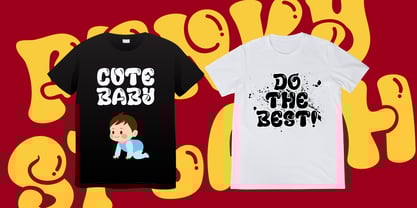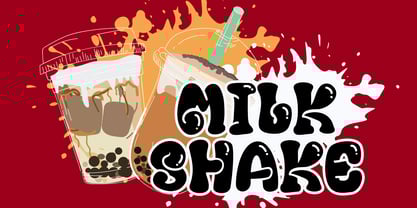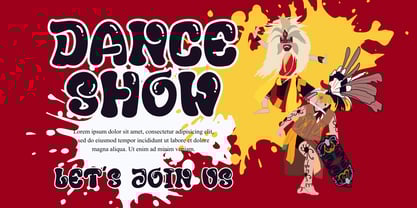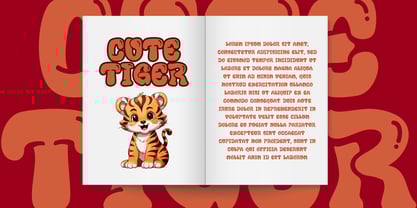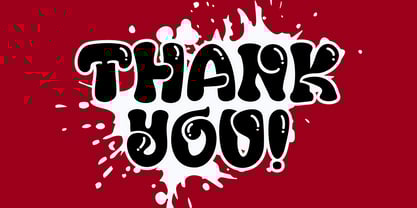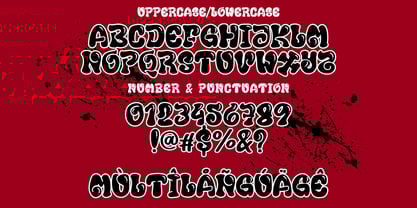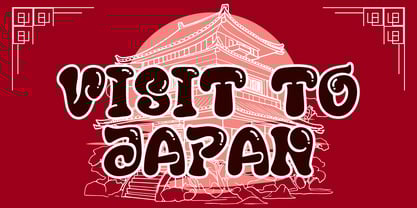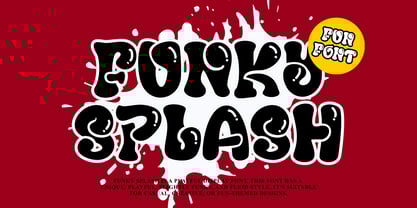
Funky Splash
by Letterafandi Studio
The Funky Splash Font Family was designed by Ahmad Afandi and published by Letterafandi Studio. Funky Splash contains 2 styles and family package options.
Funky Splash is a bold and playful display font that brings energy, creativity, and a touch of fun to any design. With its smooth, bubbly shapes and expressive curves, this font captures a joyful, dynamic character that instantly grabs attention. It blends a slightly funky and fluid style, making it perfect for designs that want to stand out with personality and charm. Each letter is crafted to give a sense of movement and liveliness, making it ideal for eye-catching titles, posters, logos, packaging, children’s designs, and various fun-themed projects. Whether you're creating playful branding, cheerful invitations, or colorful digital artworks, Funky Splash adds a splash of excitement and creativity to your composition. Let your imagination flow freely — this font is not just a typeface, it’s an expression of joy and creativity! Perfect for: * Posters and flyers * Children’s books and products * Creative branding projects * Fun merchandise or packaging * Social media graphics * Event invitations